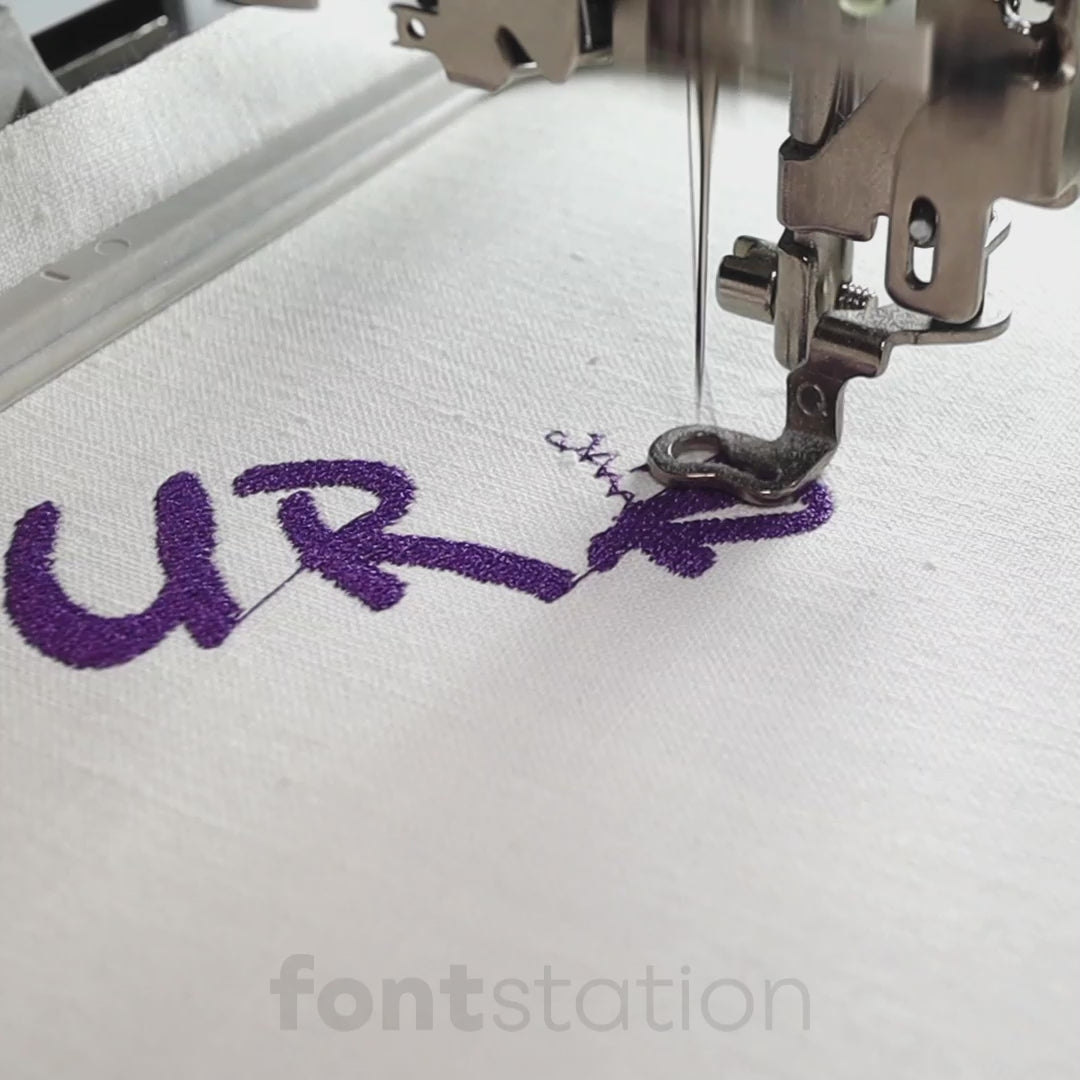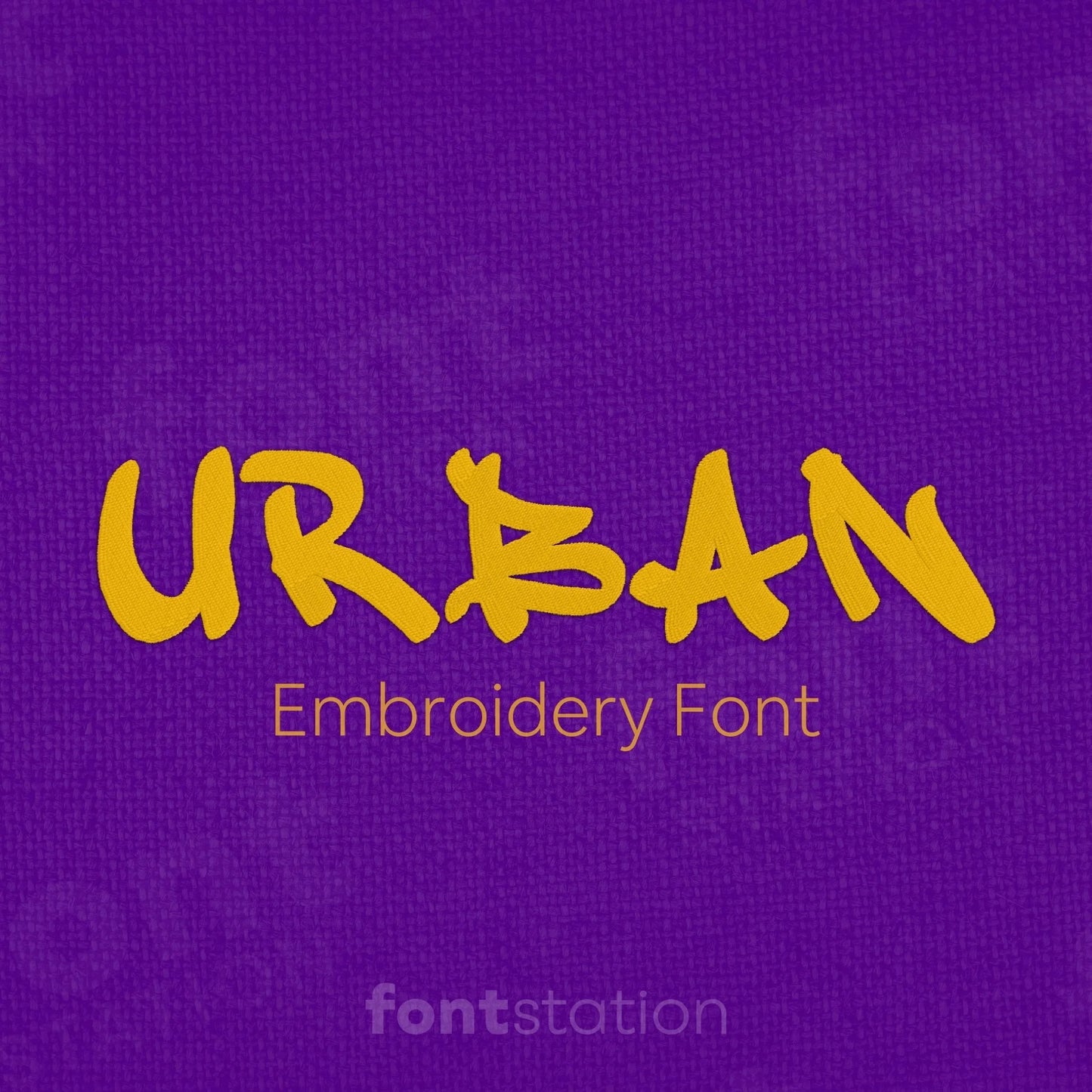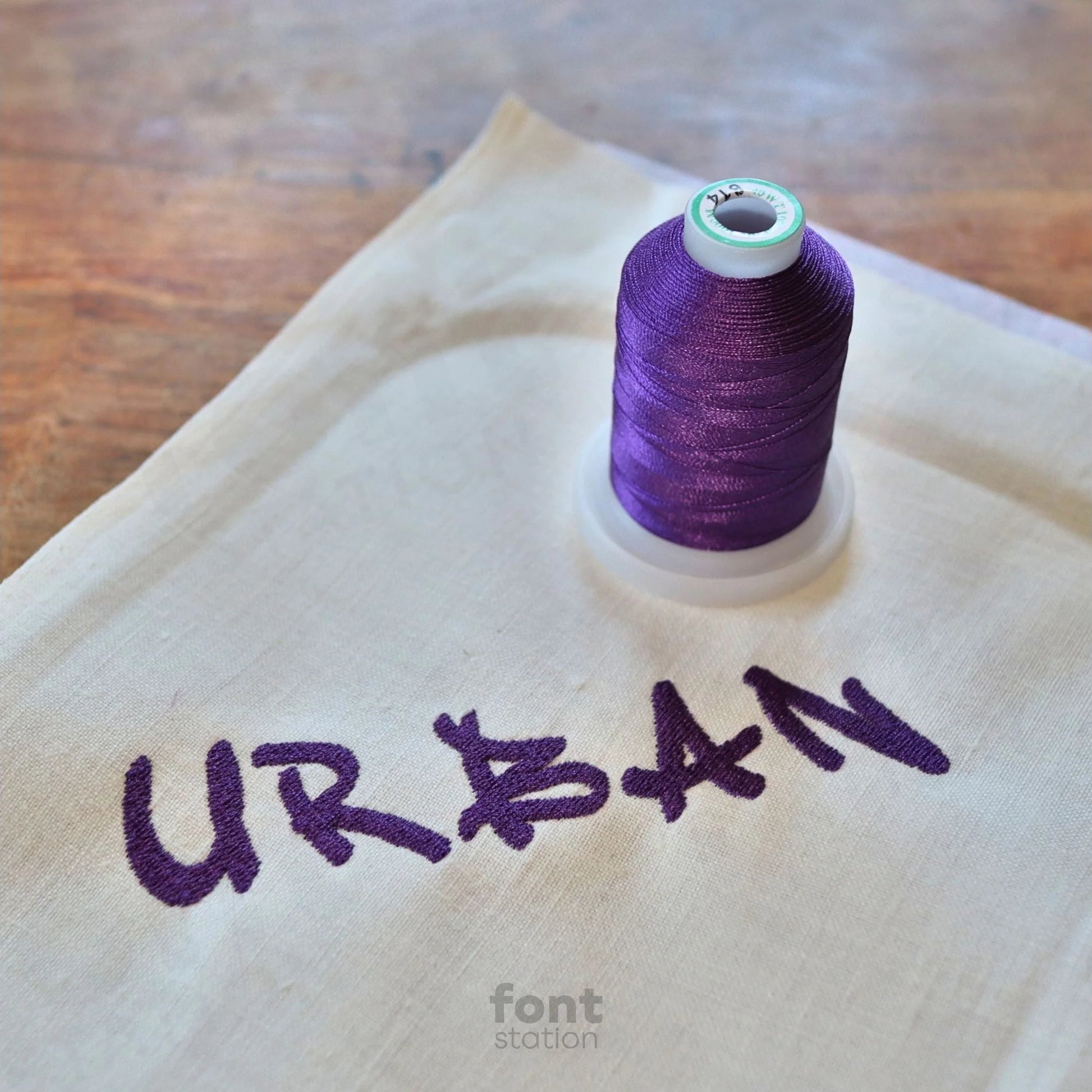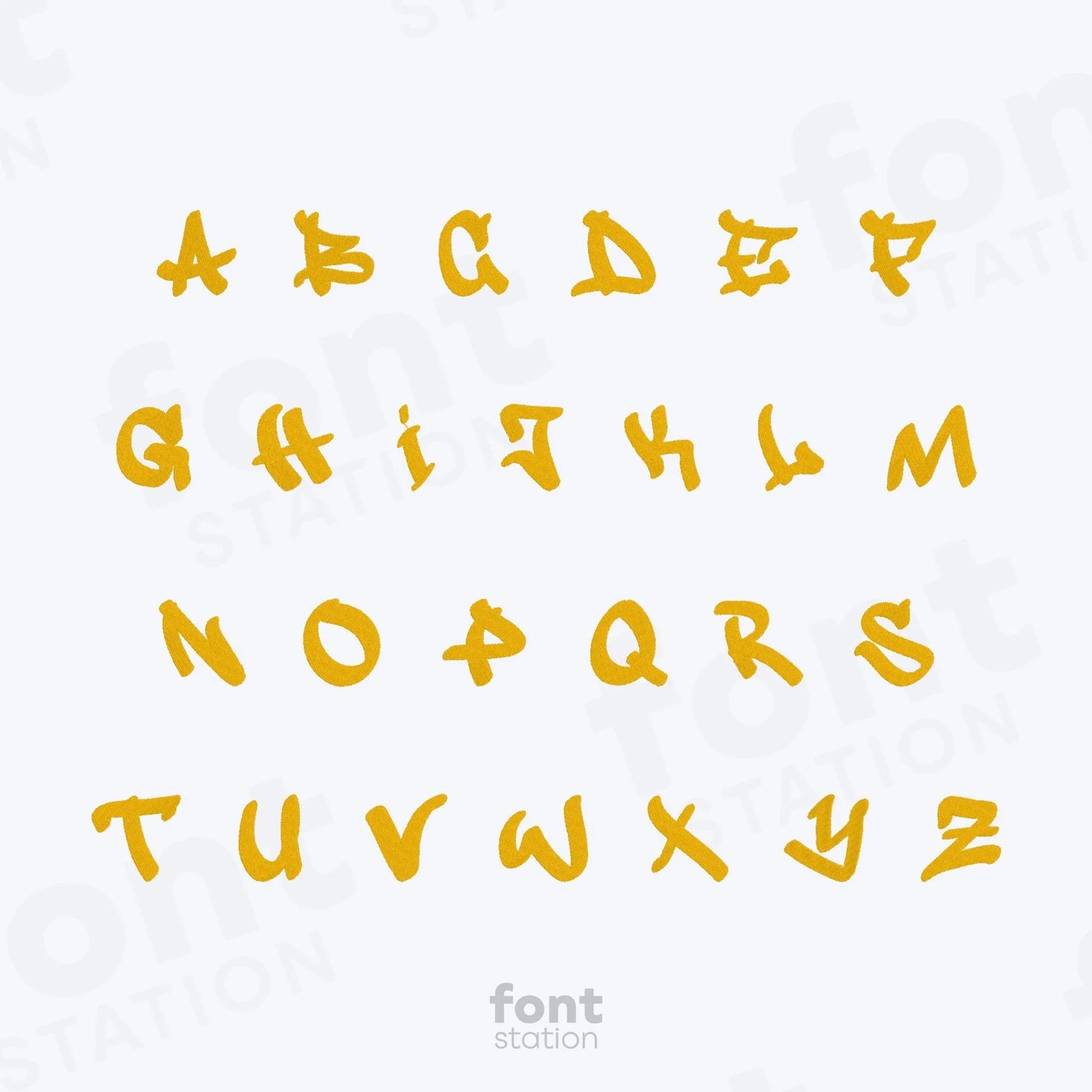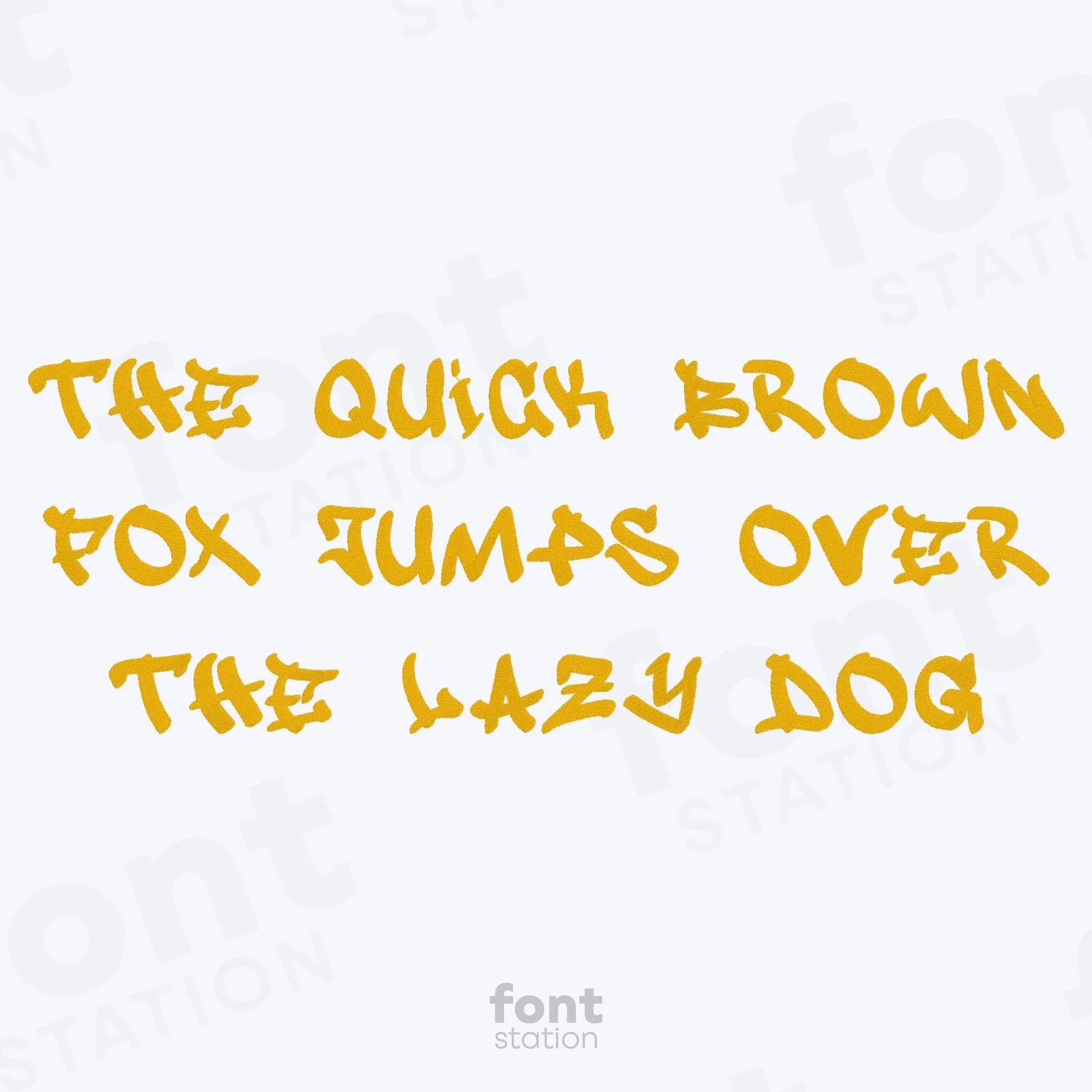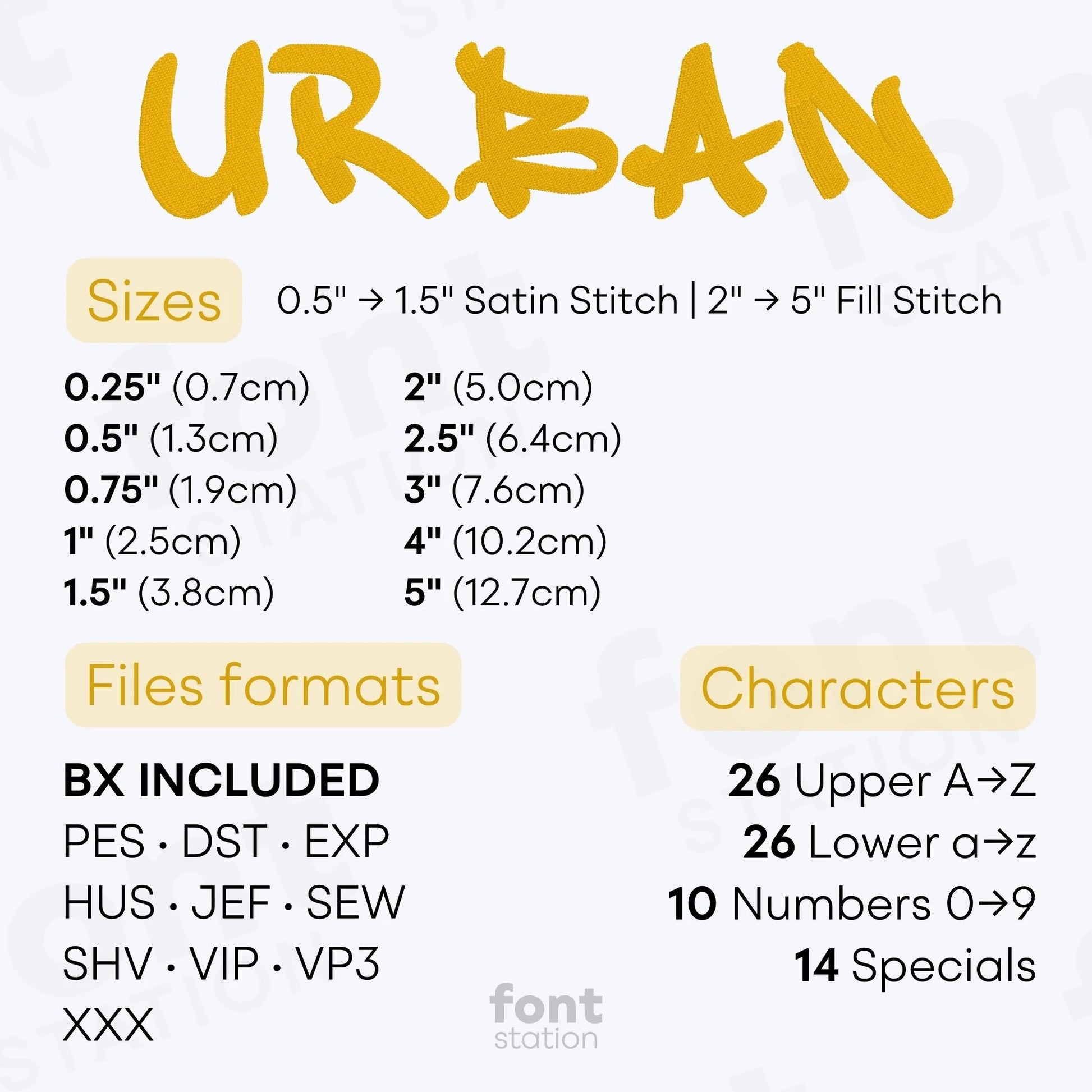
Urban Embroidery Font
Introducing our Urban embroidery font, a bold graffiti-style alphabet perfect for street-art designs. These edgy letters stitch cleanly on any embroidery machine, making it a top choice for your next statement project.
About the Urban Embroidery Font
Make a bold statement with our Urban embroidery font, a graffiti-style alphabet perfect for edgy, street-inspired embroidery designs.
The Urban embroidery font features a modern, graffiti-inspired alphabet with bold, expressive letters that add attitude to every stitch. Ideal for streetwear, hip-hop projects, custom caps, and urban-themed gifts, this font brings street art energy to your embroidery. Each character is professionally digitized for smooth stitching on any embroidery machine. Available in BX, PES, DST, JEF, EXP, VP3, and HUS formats, the Urban font is a must-have for designers who want to create with style and edge.